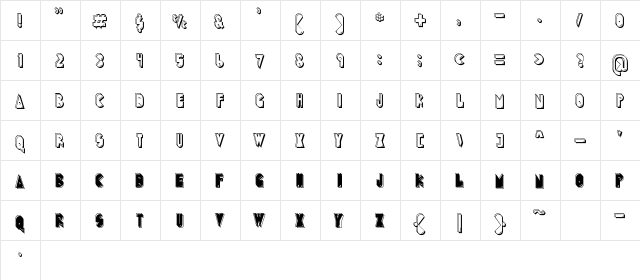
PuckMan Regular
Design Context for PuckMan Typeface
PuckMan is a composed and adaptable typeface that performs quietly and consistently across a wide range of design contexts.